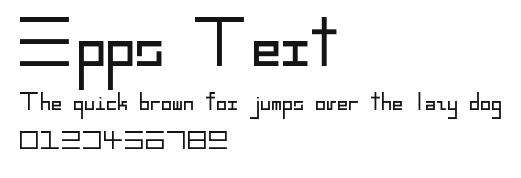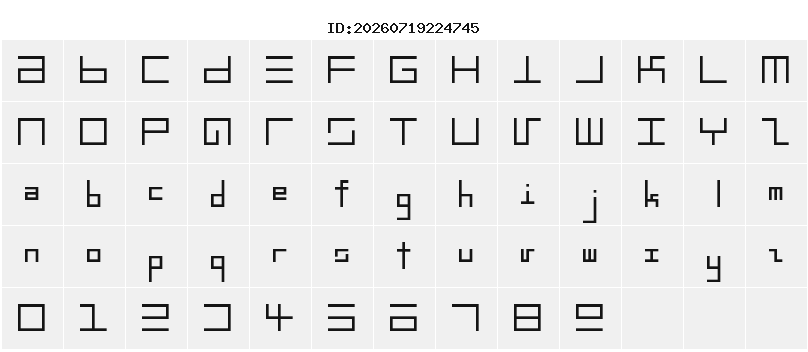
• Font Name: Epps Text
• Full Font Name: Epps Text
• Copyright: Public Domain by Martin P. Pfeiffer. Based on Epps‐Evans typeface for electronic recognition produced by the Computer Science Division of the National Physical Laboratory.
About Epps Text.ttf
Epps Text.ttf is a modern, elegant sans-serif font designed for ultimate readability and visual harmony. Perfect for branding, headlines, web design, and print materials.